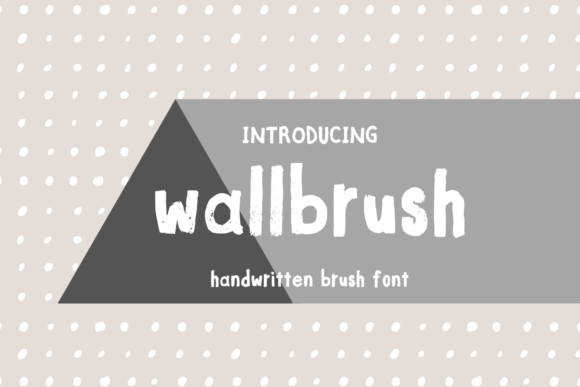
Wallbrush Font Review for Social Media Branding
It was 10 PM on a Tuesday, and I was staring at a flat, lifeless Instagram carousel for an upcoming summer sale campaign. The copy was solid, the product photography was crisp, but the headline felt sterile. In the high-speed world of social media marketing, you have less than a second to stop the scroll, and my current sans serif header just wasn't doing the heavy lifting. That is when I swapped in Wallbrush, a casual, fun handwritten font created by using a brush pen, and the entire mood of the campaign shifted instantly. As a marketer who constantly tests creative assets, I found that this specific typeface bridged the gap between professional polish and authentic human connection, turning a standard promotional post into something that felt like a personal recommendation from a friend.
Wallbrush for Instagram Stories and Engagement Graphics
When integrating Wallbrush into your social media graphics strategy, it becomes immediately clear why this Script Handwritten style performs so well in vertical video formats and story overlays. During a recent A/B test for a lifestyle brand's story sequence, we used Wallbrush for the primary hook text against a busy photographic background. The clean yet quirky nature of the letterforms maintained legibility even on smaller mobile screens, which is often the downfall of more ornate script fonts. Unlike jagged or overly complex display fonts that get lost in the visual noise of user-generated content, Wallbrush holds its own without requiring excessive drop shadows or outline effects.
The personality of this font drives engagement because it mimics the aesthetic of native platform typography while retaining premium brand quality. When designing quote cards or interactive poll stickers, the organic flow of the brush strokes encourages users to pause and read rather than tap through. From a strategic perspective, this font works best for short, punchy headlines or emotional hooks rather than dense informational text. I recommend keeping body copy in a neutral sans serif to let Wallbrush serve as the visual anchor. This hierarchy ensures that your key message—whether it is a limited-time offer or an inspirational thought—is processed first, guiding the viewer’s eye exactly where you want it to go.
Using Wallbrush for YouTube Thumbnails and Video Titles
Creating clickable YouTube thumbnails requires a delicate balance of high contrast and instant readability, making Wallbrush a surprisingly effective tool for video creators and digital marketers. In a recent campaign for an online course launch, we needed a title treatment that felt energetic and accessible rather than academic or stiff. Because Wallbrush is a casual, fun handwritten font created by using a brush pen, it naturally conveys enthusiasm and approachability, which are critical metrics for click-through rates in the education and lifestyle niches. The varying stroke width provides natural emphasis on keywords without needing manual bolding, allowing the thumbnail to remain visually dynamic even at small sizes.
However, practical application requires restraint. While this font excels at three-to-five-word titles, it should never be used for long subtitles or technical specifications. During our thumbnail testing phase, we found that pairing Wallbrush with a heavy-weight geometric sans serif for secondary text created the perfect modern typography system. The handwritten element grabbed attention in the feed, while the supporting typeface delivered the necessary context. This combination signals to the algorithm and the audience that the content is both professionally produced and personally curated. For creators focusing on vlogs, tutorials, or behind-the-scenes content, this font adds a layer of authenticity that polished, corporate typefaces simply cannot replicate.
Wallbrush for Logos and Crafty DIY Project Branding
Beyond digital ads and social feeds, Wallbrush serves as a foundational asset for logos, branding, and crafty DIY projects where tactile appeal is paramount. When reviewing this font for a boutique e-commerce rebrand, the "quirky but clean" descriptor proved accurate; it avoids the messiness of amateur lettering while retaining the warmth of hand-drawn art. This makes it exceptionally versatile for packaging design, product labels, and unboxing experience materials. In the DIY and maker space, audiences respond to visuals that feel handmade, and using a genuine brush-pen-derived typeface reinforces that brand promise without the inconsistency of custom hand-lettering every single asset.
For logo design specifically, Wallbrush offers enough character to stand alone as a wordmark, but it also pairs beautifully with simple iconography. The open counters and relaxed baseline alignment prevent the logo from feeling too rigid or formal, which is essential for brands targeting creative entrepreneurs or hobbyists. When applying this font to physical merchandise like tote bags, stickers, or apparel, the organic edges translate well to print and embroidery. Just ensure you check the commercial font licensing before scaling up production, as proper usage rights are vital for selling branded goods. The font’s inherent playfulness makes it ideal for businesses that want to project creativity and joy, though it may not be suitable for law firms or financial institutions requiring strict corporate gravity.
Optimizing Readability Across Digital Ad Formats
While Wallbrush is a stunning creative font, its performance in paid digital advertising depends entirely on how you manage contrast and spacing. In display ads and banner campaigns, readability is non-negotiable. I have found that this typeface shines brightest when given ample breathing room; cramming it into tight text boxes kills the organic energy that makes it special. When overlaying text on images, use a subtle gradient or color block behind the Wallbrush text to ensure accessibility standards are met. The brush texture can sometimes blend into textured backgrounds, so high-contrast pairings—like white text on deep charcoal or navy—are safer bets than low-contrast pastels.
Furthermore, consider the emotional intent of your ad set. Wallbrush communicates spontaneity, celebration, and personal touch. It is perfect for flash sales, new arrivals, community events, and testimonial highlights. It is less effective for disclaimer text, pricing tables, or urgent safety warnings where uniformity equals trust. By reserving this Script Handwritten style for moments of connection and excitement, you preserve its impact. Overusing it dilutes the novelty and can make a brand look unprofessional. Strategic scarcity in your typography choices ensures that when Wallbrush appears, your audience knows something fun or important is happening.